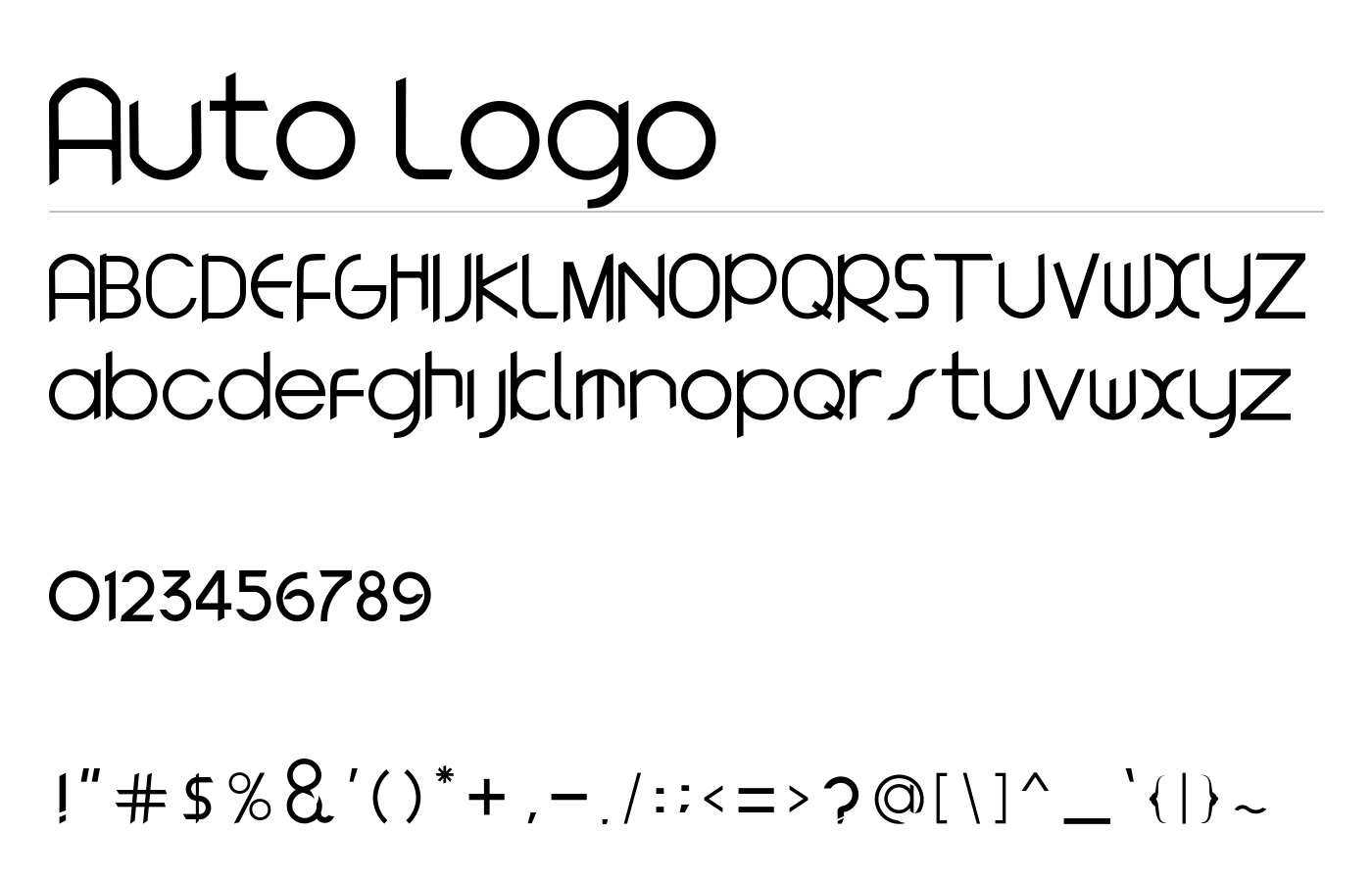
Auto Logo Font is a sleek and modern sans serif typeface with a slightly condensed width and a high x-height that enhances readability. Its clean geometric shapes combined with sharp, angled strokes give it a futuristic and technical feel, making it perfect for automotive branding, technology logos, and contemporary design projects. This font stands out for headline use and logos where a stylish, professional, and forward-looking impression is desired.
Auto Logo Font
About Auto Logo Font